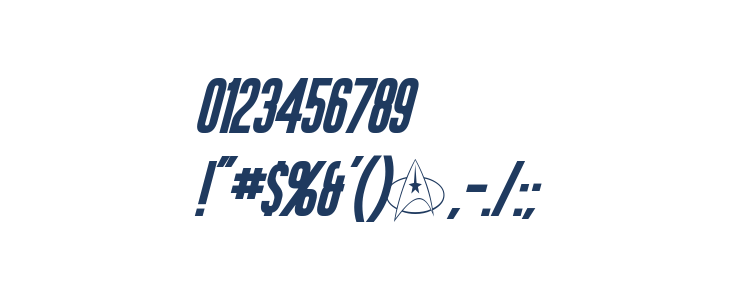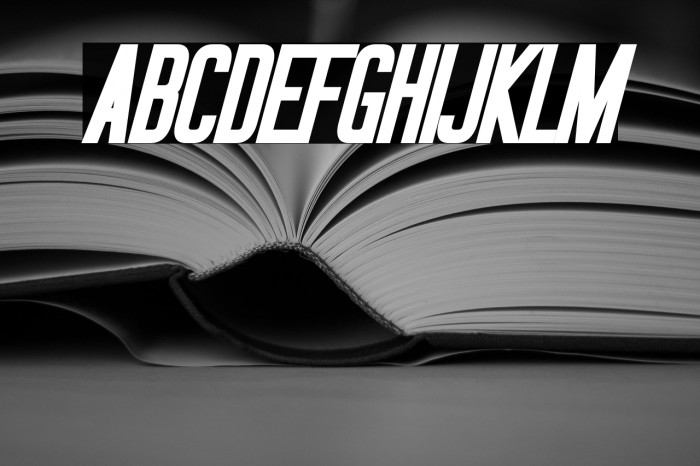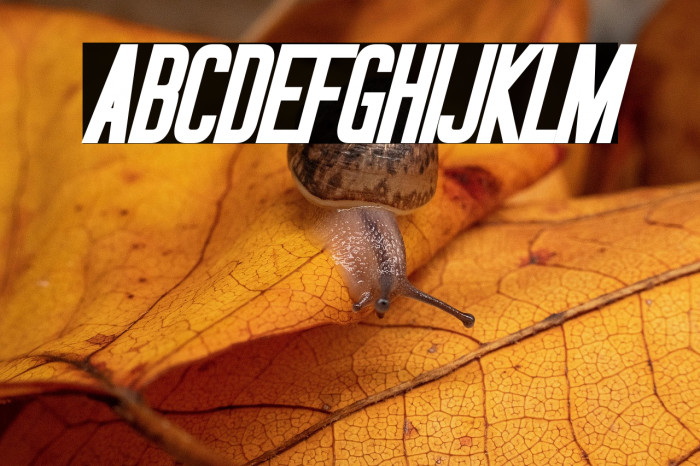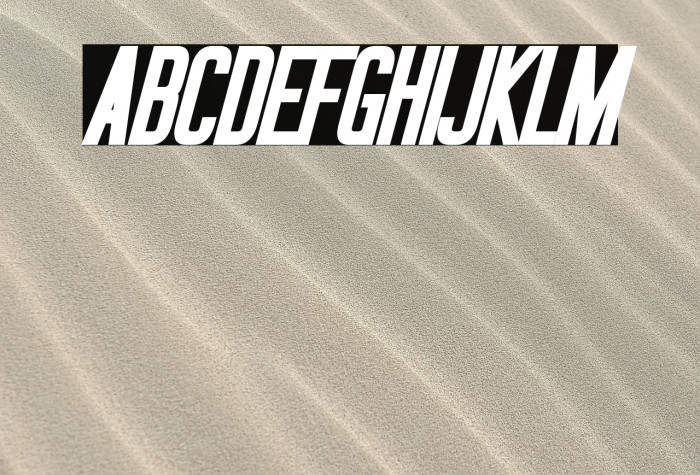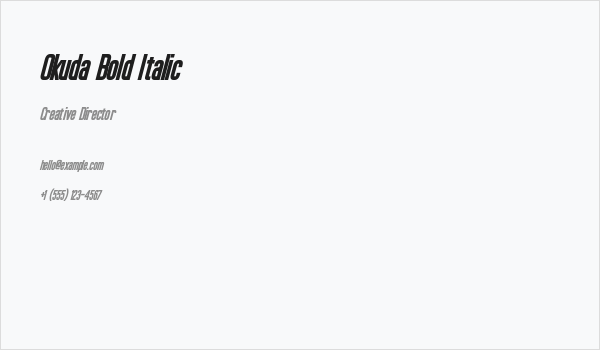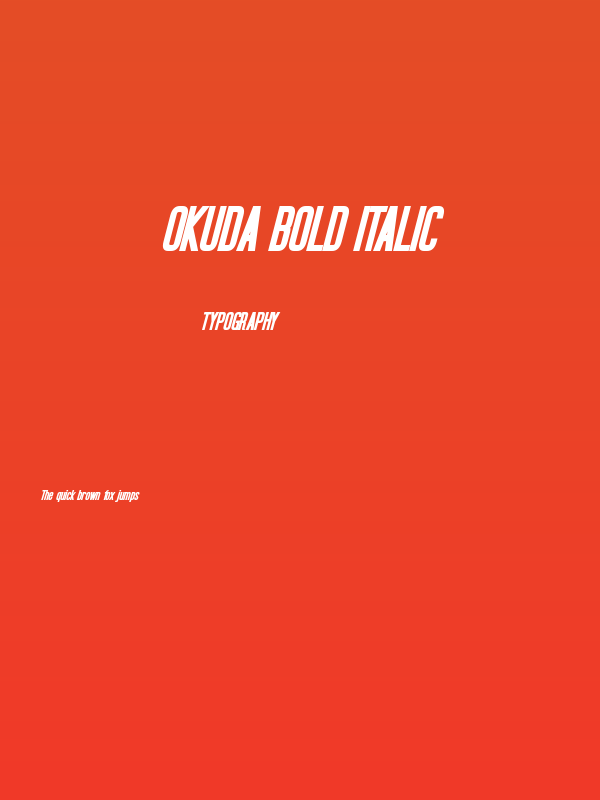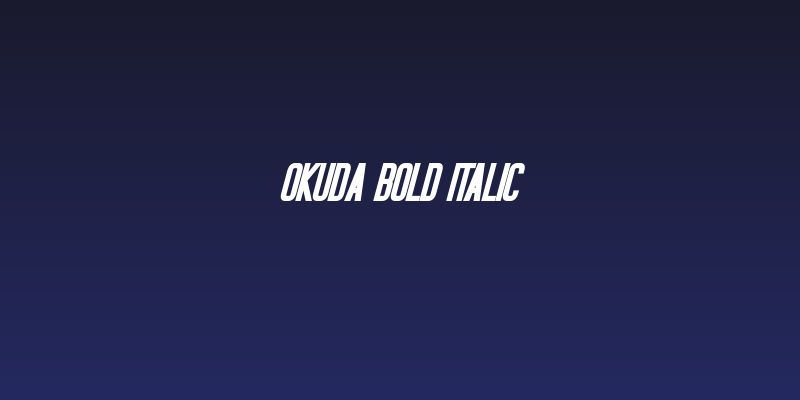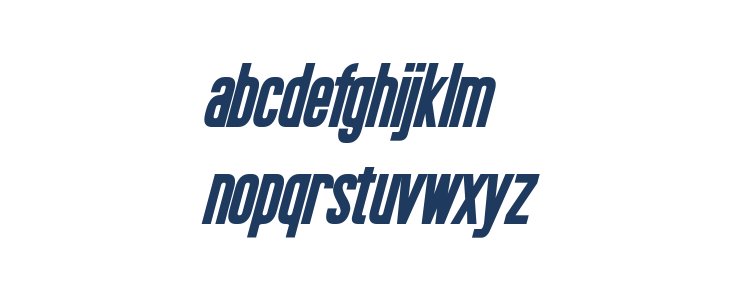
Okuda Bold Italic Font
Okuda Bold Italic Description
This font exhibits a bold and italicized style, characterized by its strong and dynamic presence. The letters are slanted, giving a sense of motion and energy. The strokes are thick and consistent, providing a robust and impactful appearance. The uppercase and lowercase letters maintain a uniform style, with sharp angles and clean lines. The numerals are equally bold, ensuring readability and emphasis. Special characters are included, maintaining the same bold and italicized aesthetic, which adds versatility to the font's usage.
| Proposed Projects | Ideal for sports branding, dynamic posters, modern advertisements, and any project requiring a bold statement. |